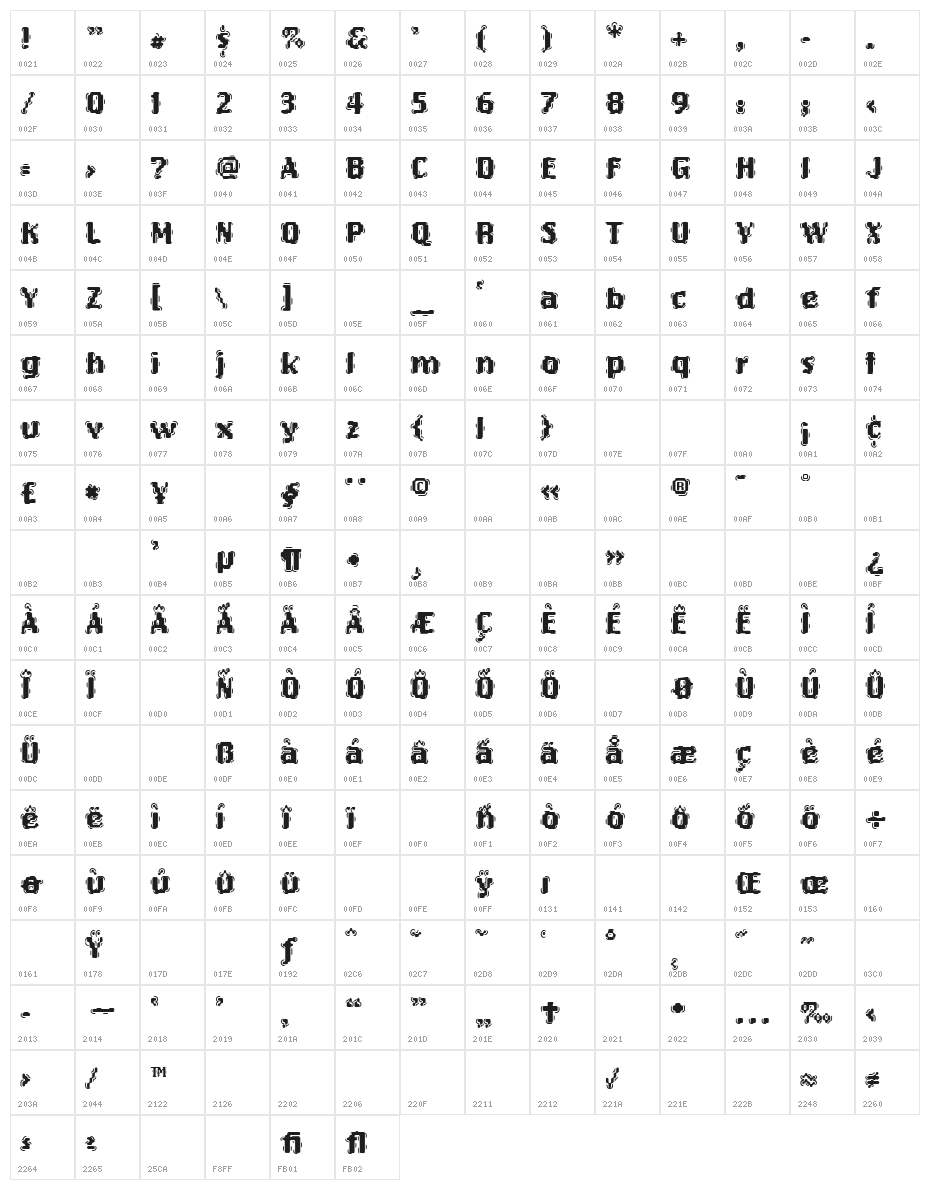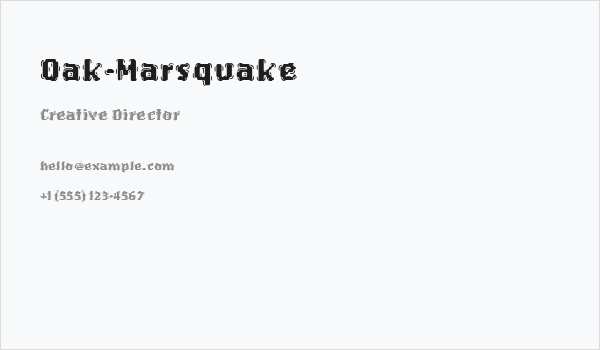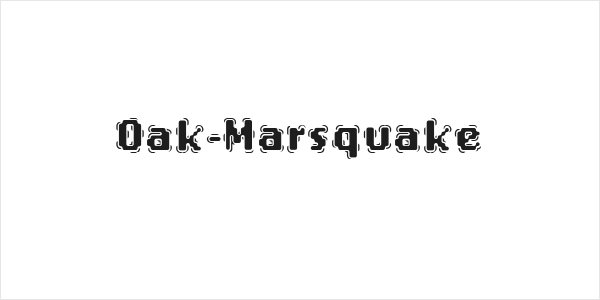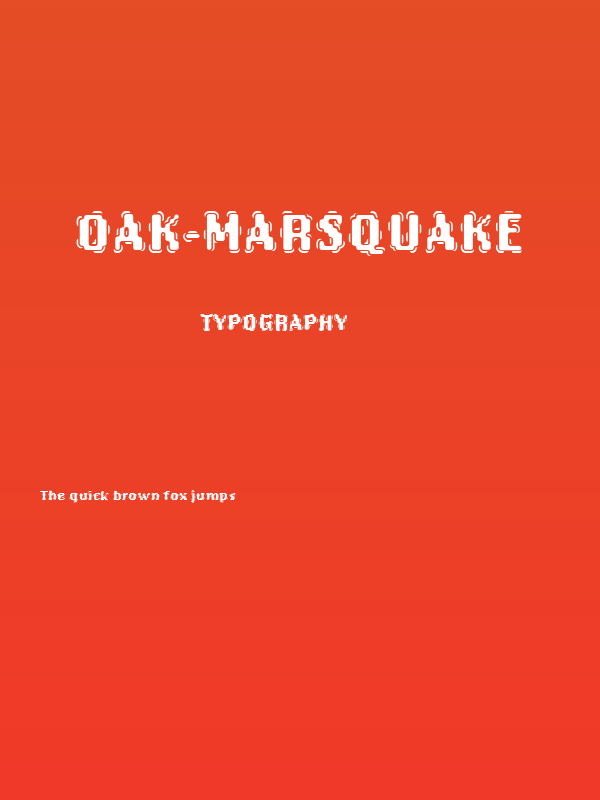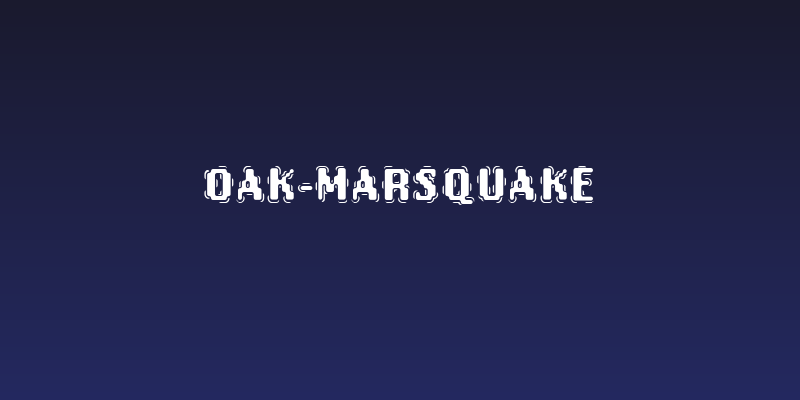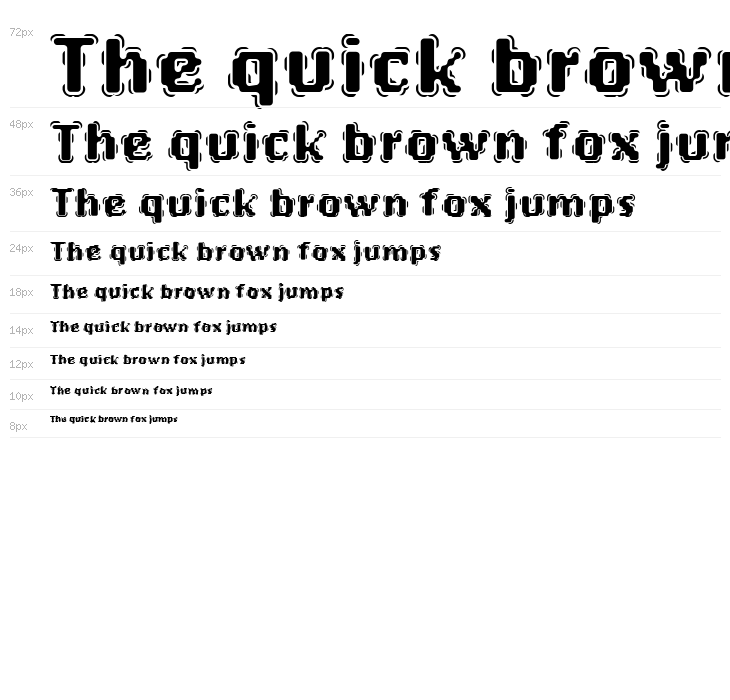
Oak-Marsquake Font
Oak-Marsquake Description
This font features a bold, decorative style with a unique, layered appearance. Each character is outlined with a thick, shadow-like border that gives it a three-dimensional effect. The letters are uppercase and lowercase, with numerals and a range of special characters. The design is playful yet structured, making it suitable for eye-catching displays. The characters are evenly spaced, and the bold outlines create a strong visual impact. The font's distinct style is reminiscent of retro or vintage designs, yet it maintains a modern flair through its clean lines and geometric shapes.
| Overall Style | Modern, Vintage |
| Proposed Projects | Ideal for posters, logos, headlines, and any project requiring a standout, artistic typeface. |